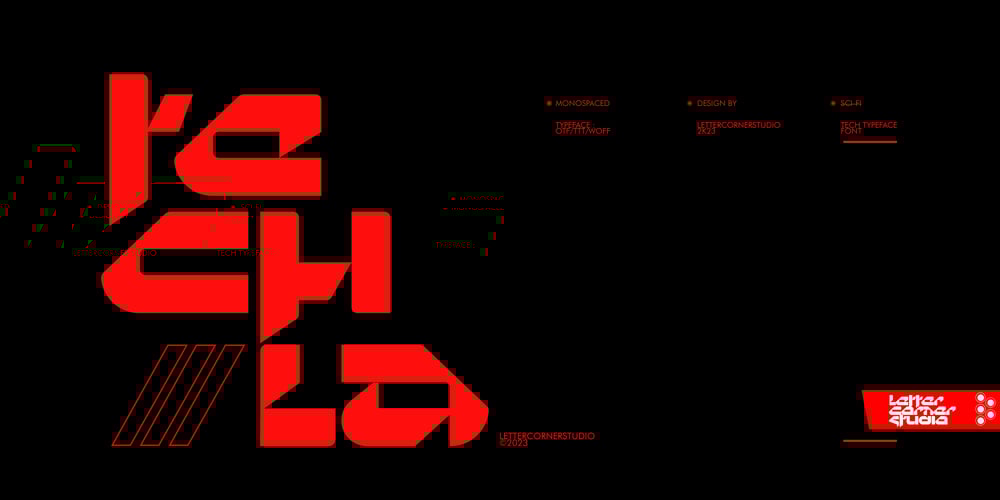
Techla
Techla font
Techla Font Family was designed by Muhammad Afif Ersya and published by Mevstory Studio. Techla contains 1 styles and family package options. Techla is a futuristic/science fiction typeface in several weights and styles. Techla also comes with stylistic alternatives on several letters.Included:Techla RegularTechla includes multilingual support , numbers and punctuation.